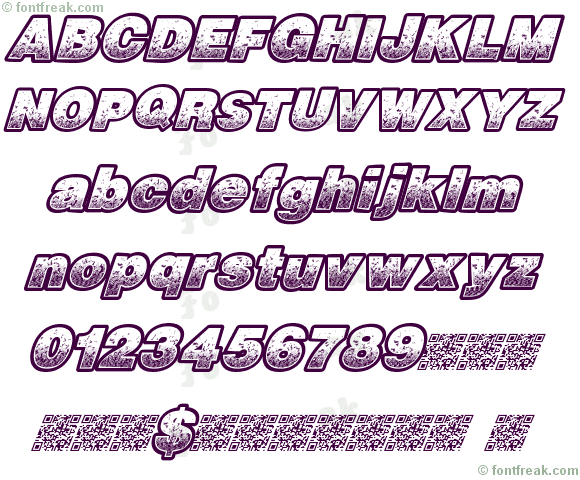
RacingNumbers, crafted by XEROGRAPHER FONTS, is a distinctive display font that captures the thrilling essence of speed and competition. This font, released in 2014 under a freeware license, features bold, dynamic letterforms that evoke the adrenaline of racing events. The design showcases a moderate stroke weight with a playful contrast, ensuring that each character stands out while maintaining a sense of movement. The spacing is thoughtfully balanced, allowing for clear readability, even at larger sizes.
This versatile font is perfect for a variety of creative applications. It shines in contexts such as racing-themed promotional materials, event flyers, and merchandise for motorsports enthusiasts. Additionally, it can add a unique touch to sports team branding, movie posters about high-octane adventures, or even signage at racing events. Graphic designers and small business owners looking to convey energy and excitement will find RacingNumbers particularly appealing, as it effectively communicates a sense of action and urgency.
The target audience for this font includes graphic designers, content creators, and small business owners who want to infuse their projects with a bold aesthetic. RacingNumbers not only serves practical design needs but also resonates with audiences who appreciate the thrill of competition.
What sets RacingNumbers apart is its ability to blend style with functionality, making it a striking choice for anyone seeking to capture attention. Its energetic design and free availability ensure that it can be accessed by a wide range of creators, making the RacingNumbers font free download a valuable addition to any designer's toolkit. Whether for print or digital projects, this font stands ready to elevate your designs with its unique flair.